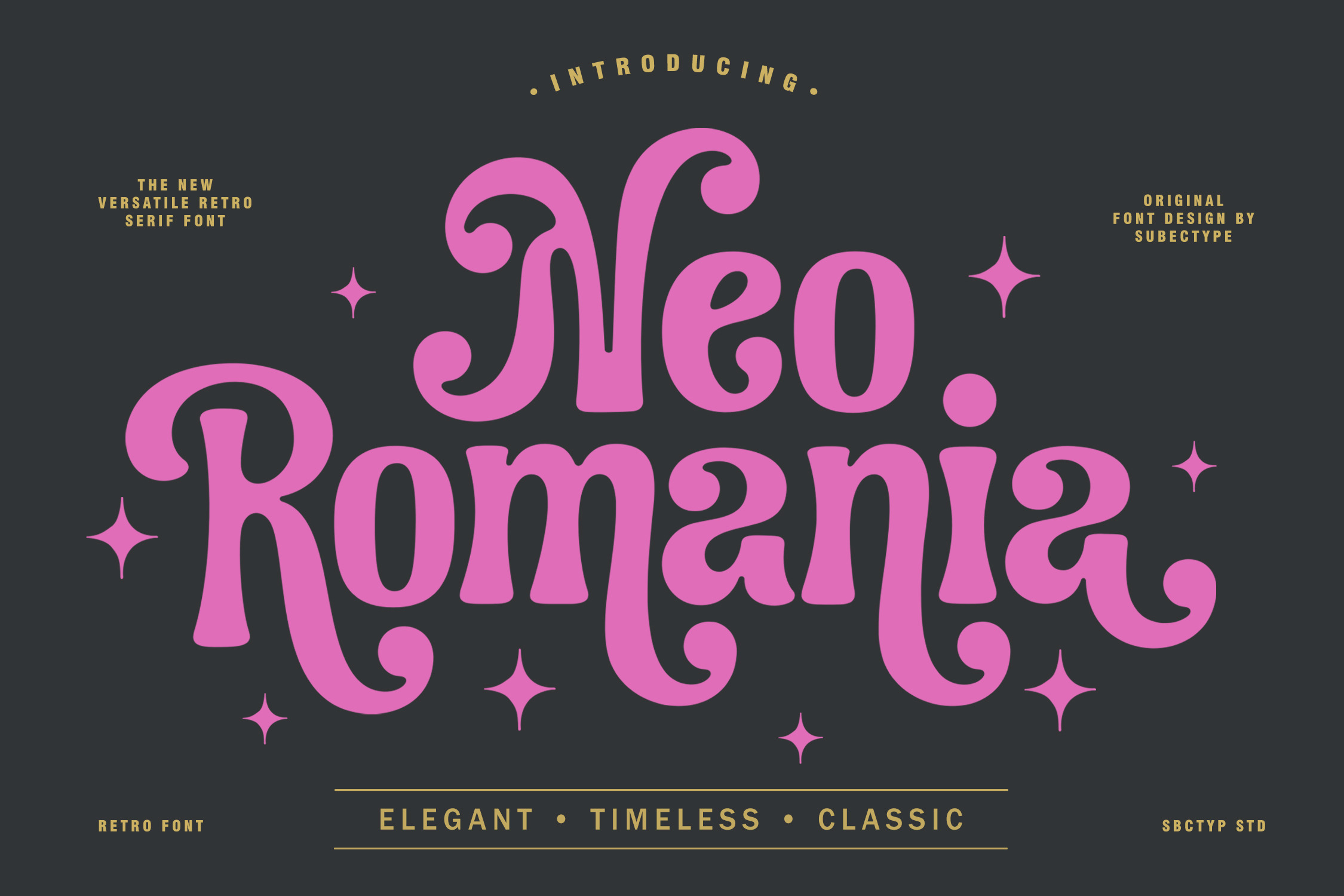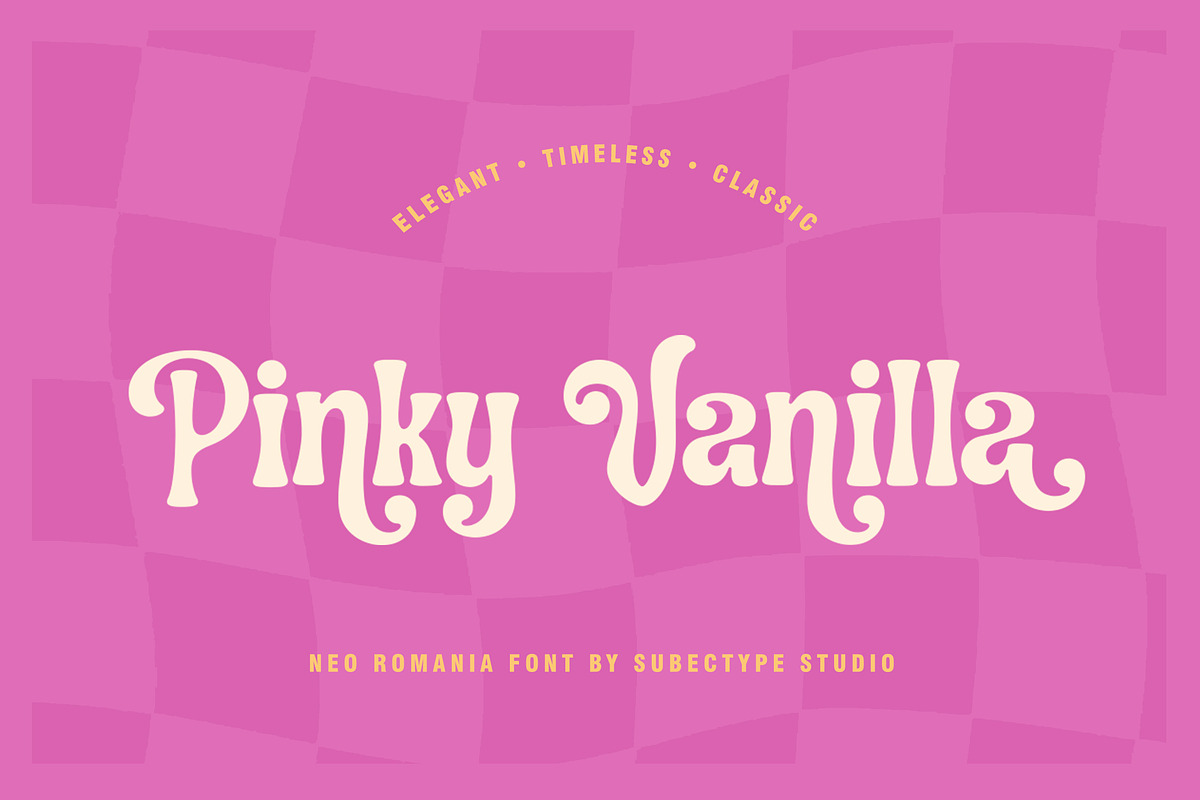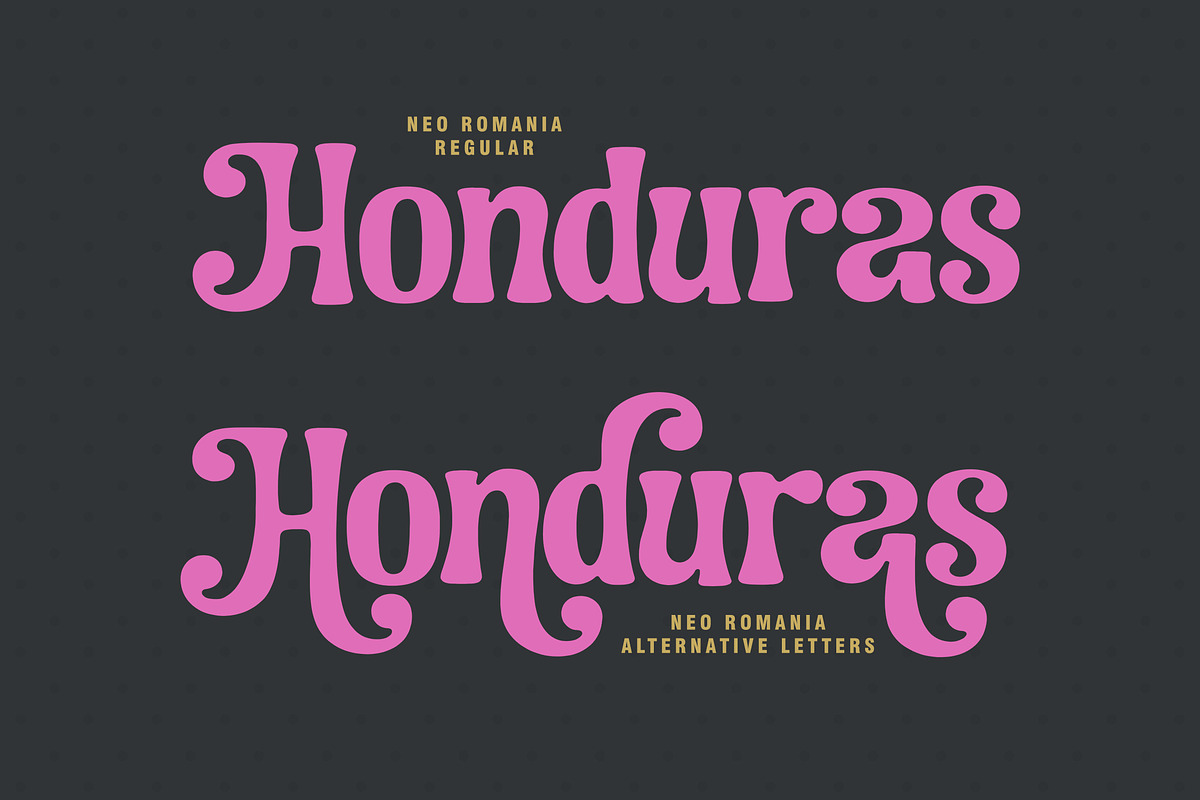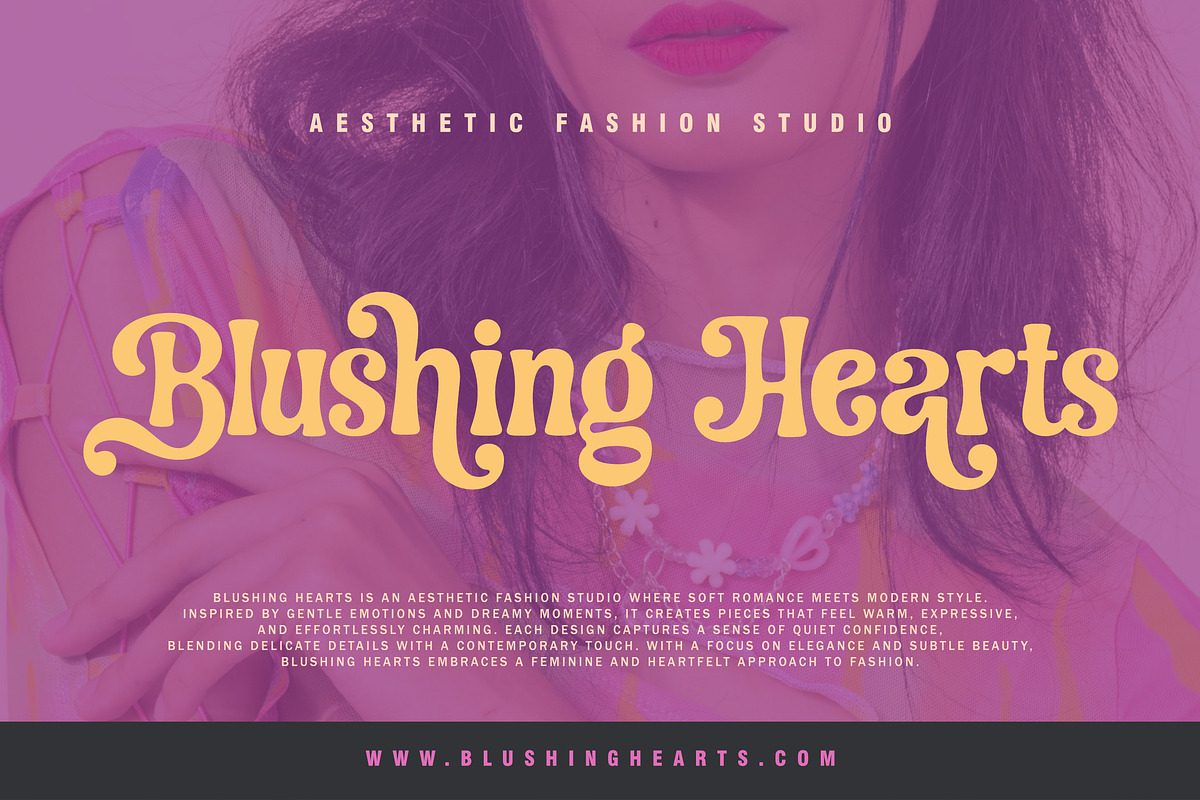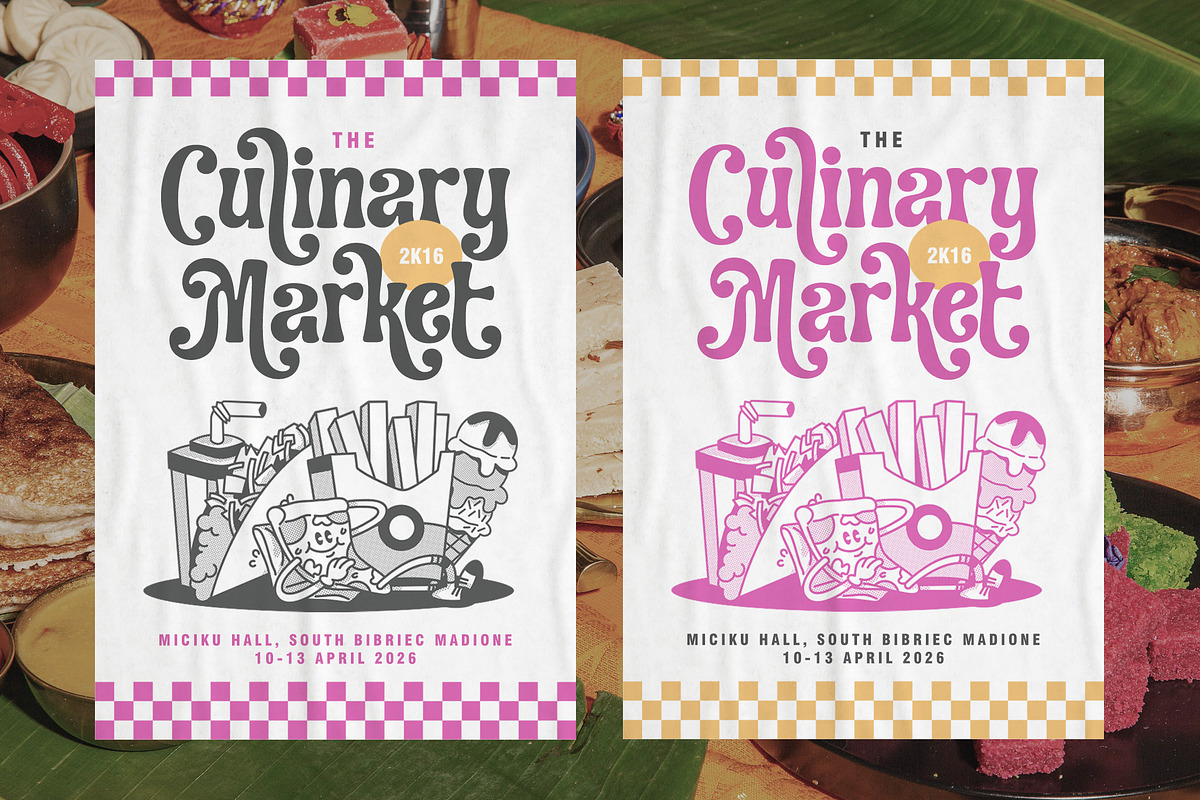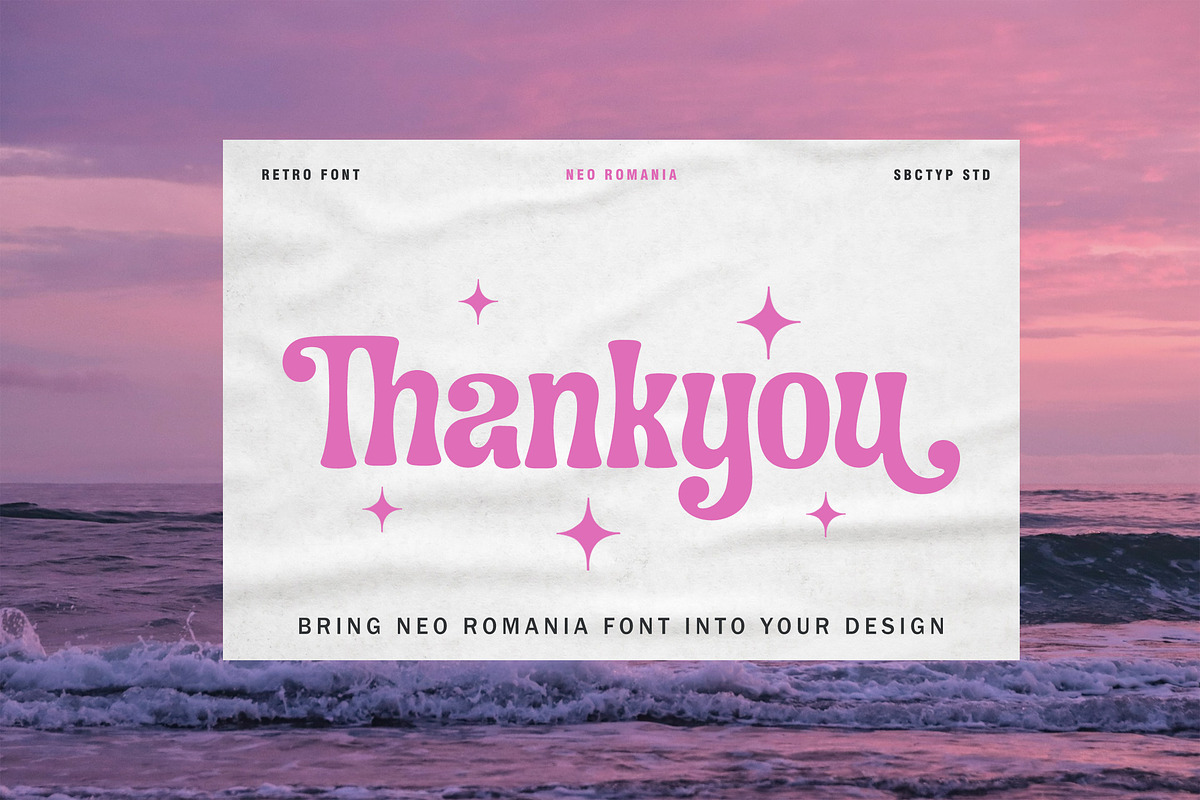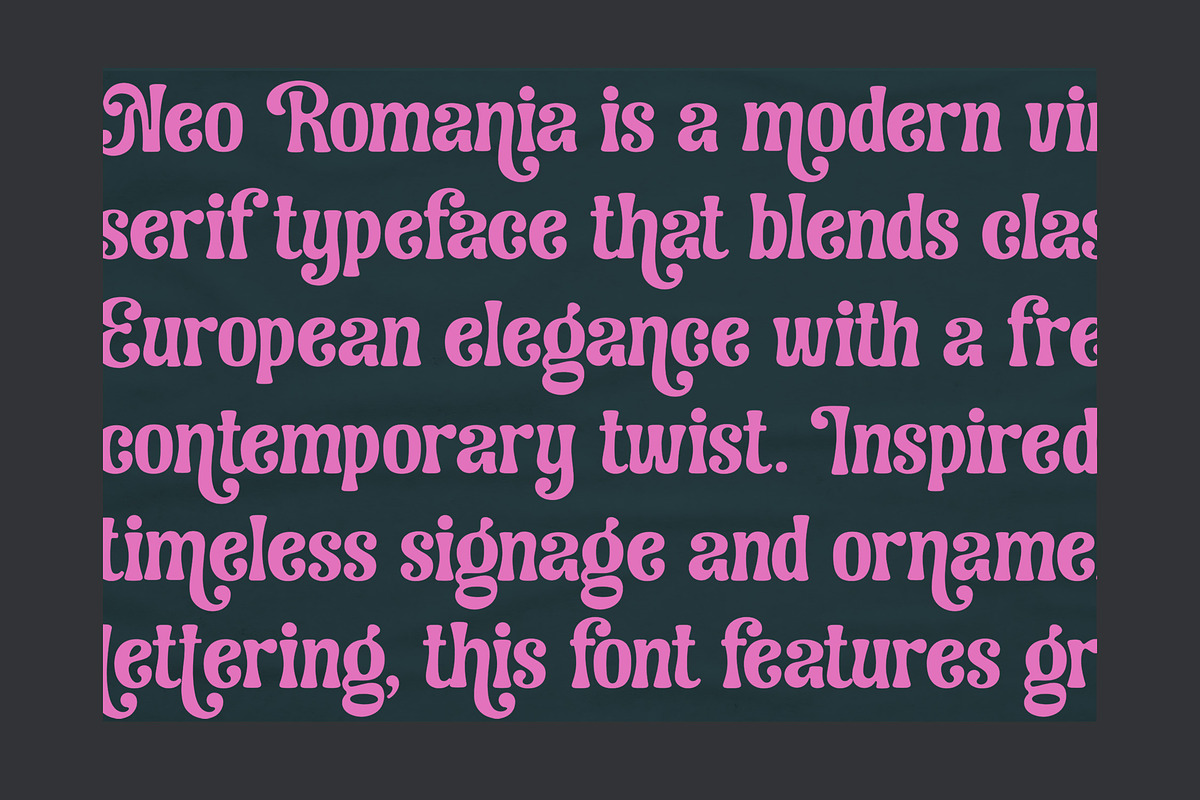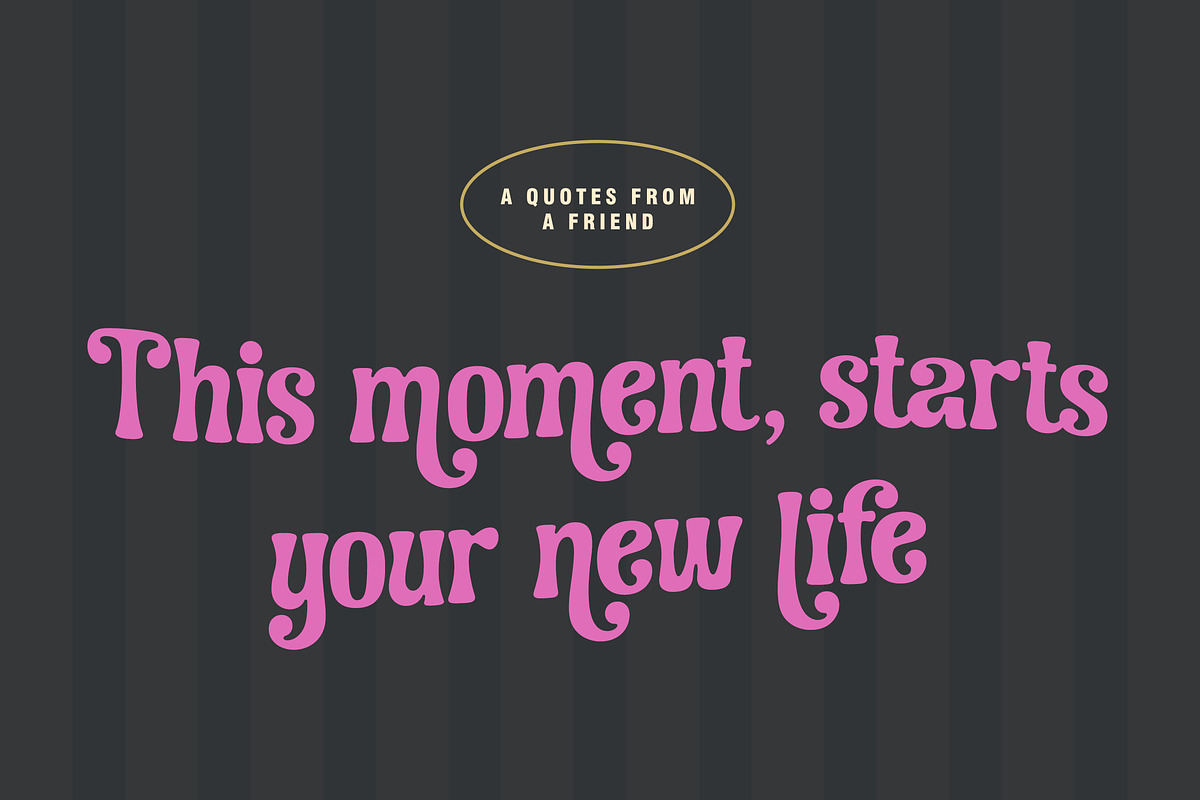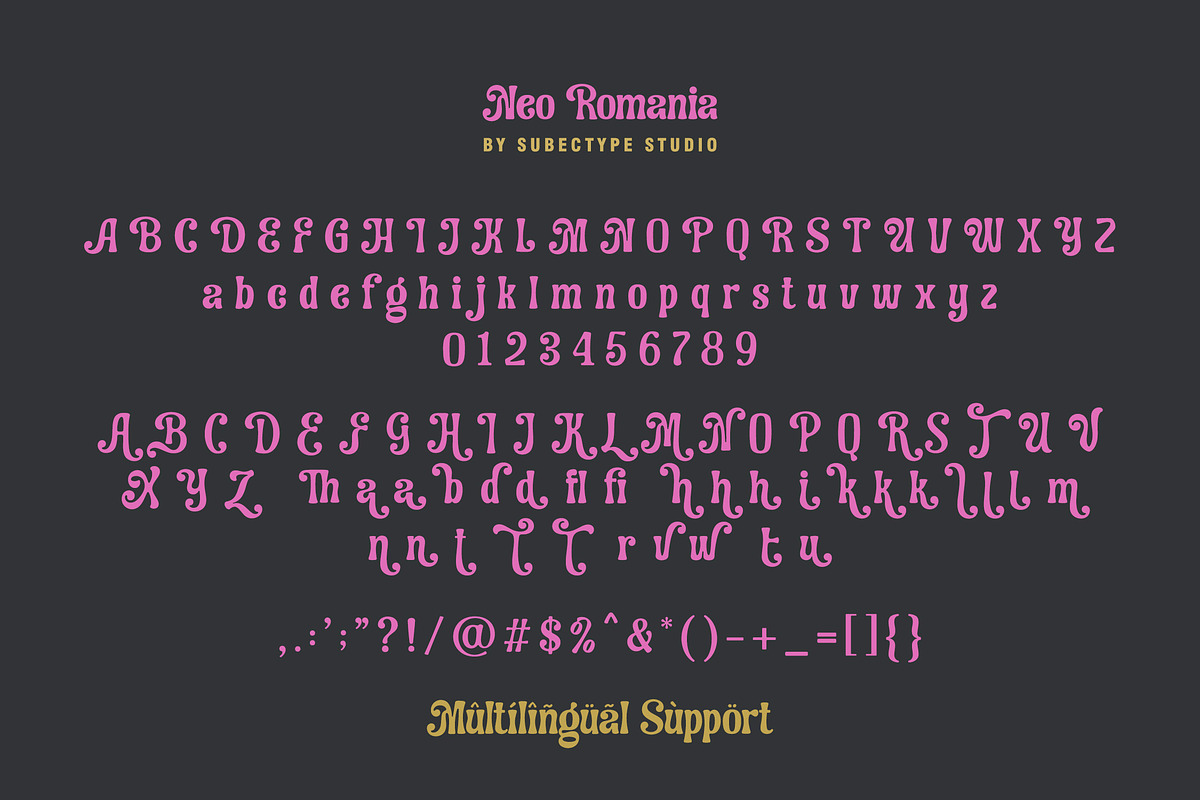
Neo Romania - Decoratif Serif Font
Neo Romania is an elegant, timeless, and classic serif font that blends vintage charm with modern versatility. Inspired by retro aesthetics, it features soft curves, bold strokes, and distinctive ornamental details that bring a sense of sophistication and character to any design.
Perfect for branding, packaging, editorial layouts, logos, and display purposes, Neo Romania delivers a refined yet playful personality. Its unique letterforms evoke nostalgia while maintaining a fresh and stylish appeal, making it suitable for both classic and contemporary projects.
ligatures and Alternative Letters